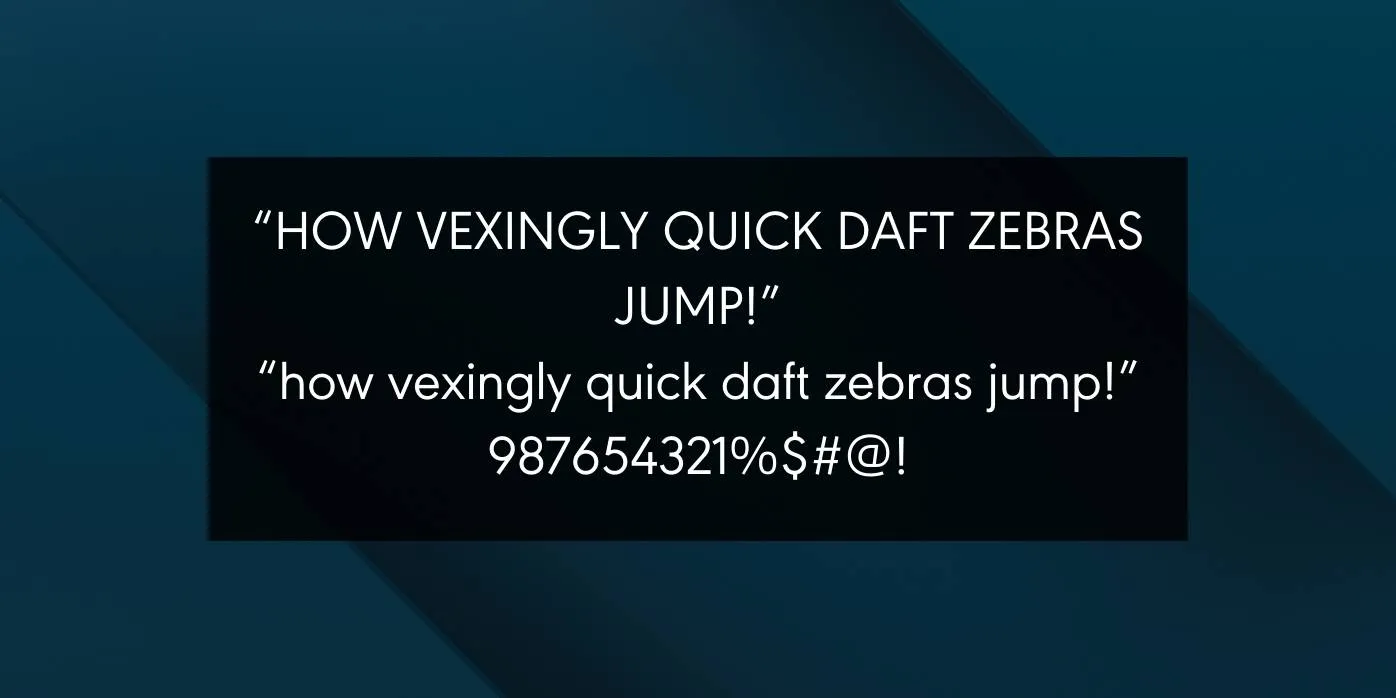
URW Geometric Font
Today, we introduce URW Geometric Font which was developed by Jörn Oelsner. This typeface belongs to the category of the sans serif family. This typeface has 20 styles and was published by URW Type Foundry. URW Geometric Typeface is a humanist sans serif with a modern touch.
This typeface is perfect for any project that needs a clean and modern look. URW Geometric Typeface is great for branding, web design, print design, and more. You can also use the generator tool of this typeface for all of your graphic design projects.